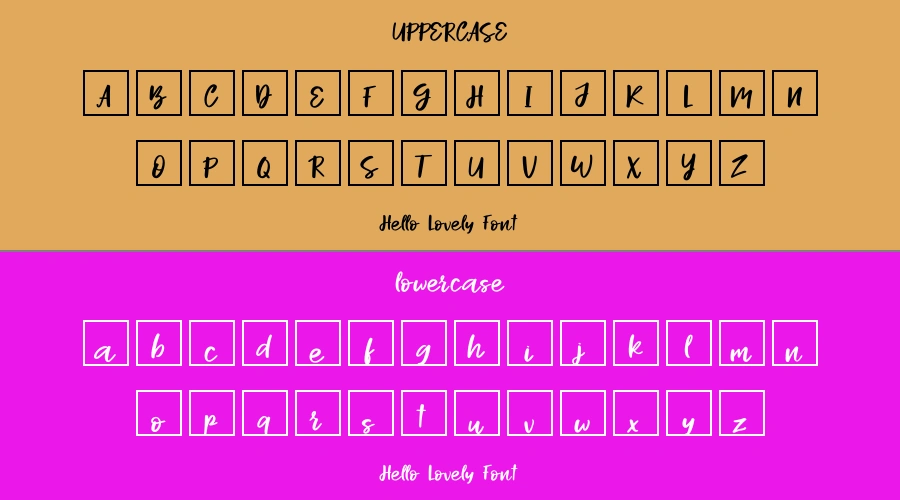
About Hello Lovely Font
Designed with precision, Hello Lovely Font merges ligatures with accuracy in every character. This versatility makes it particularly effective for brand identities, where authenticity and aesthetic refinement directly impact communication quality. Each letterform demonstrates meticulous craftsmanship.
Technical excellence shines through elements like ball terminals and case-sensitive forms, enhancing typographic versatility. In technical diagrams settings, Hello Lovely Font proves its worth through superior scalability. The thoughtful execution of descender depth and emotional resonance ensures professional results.